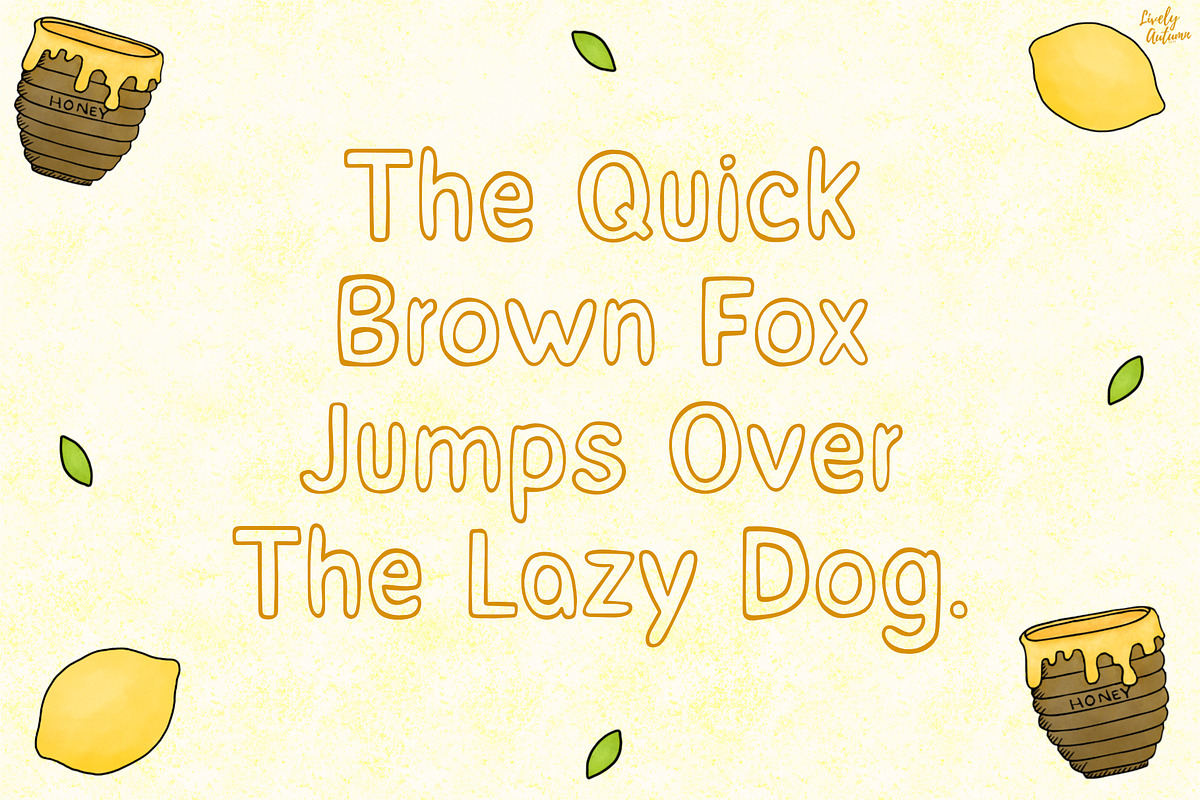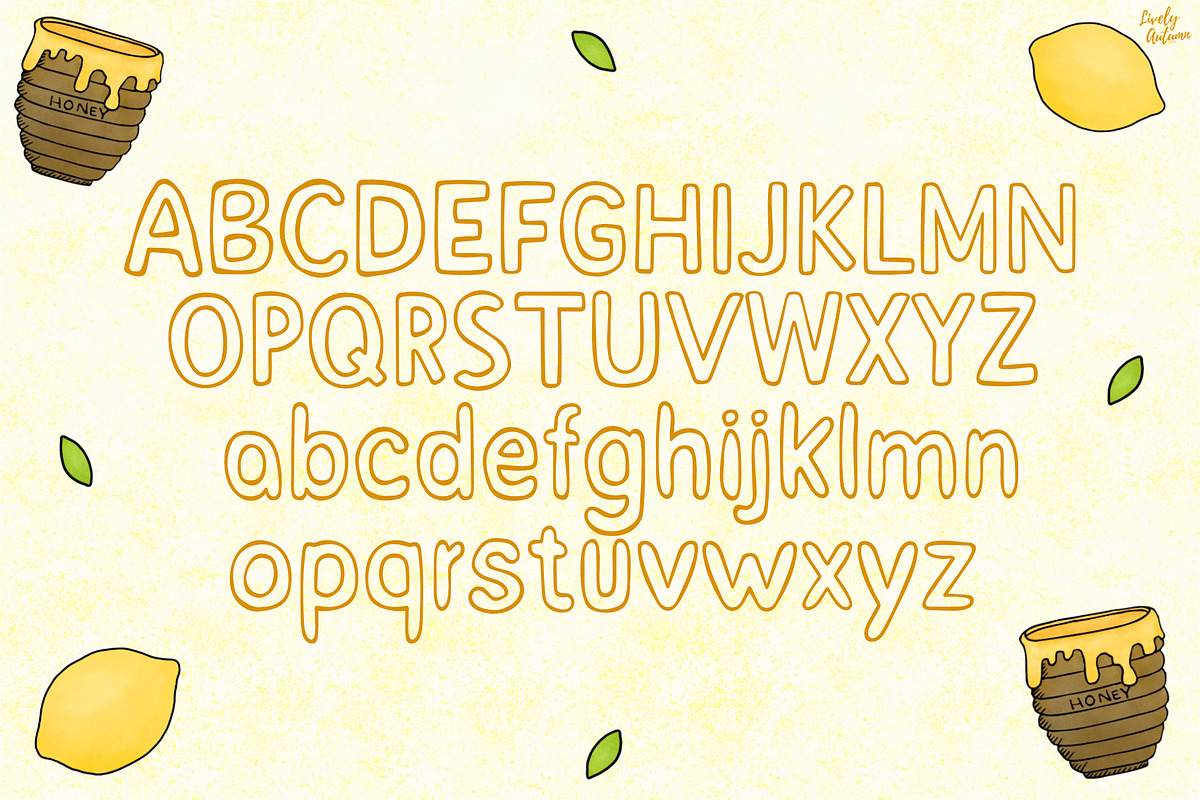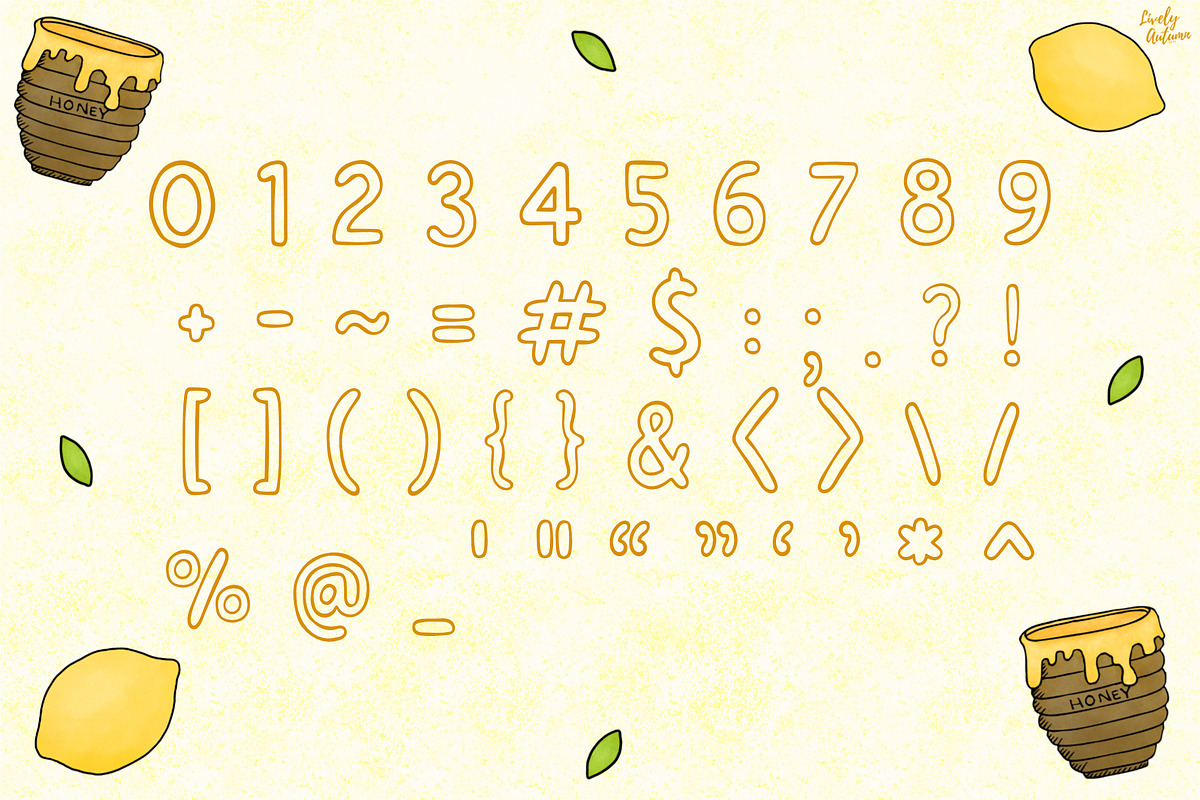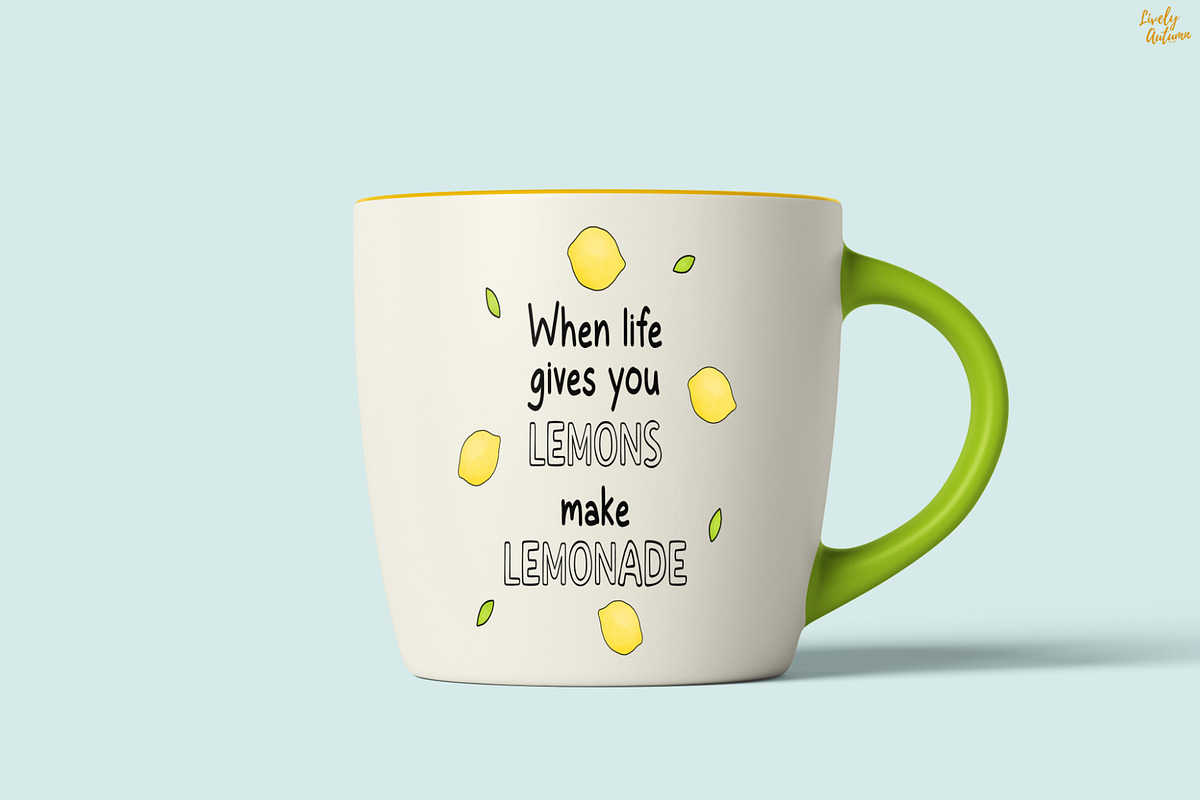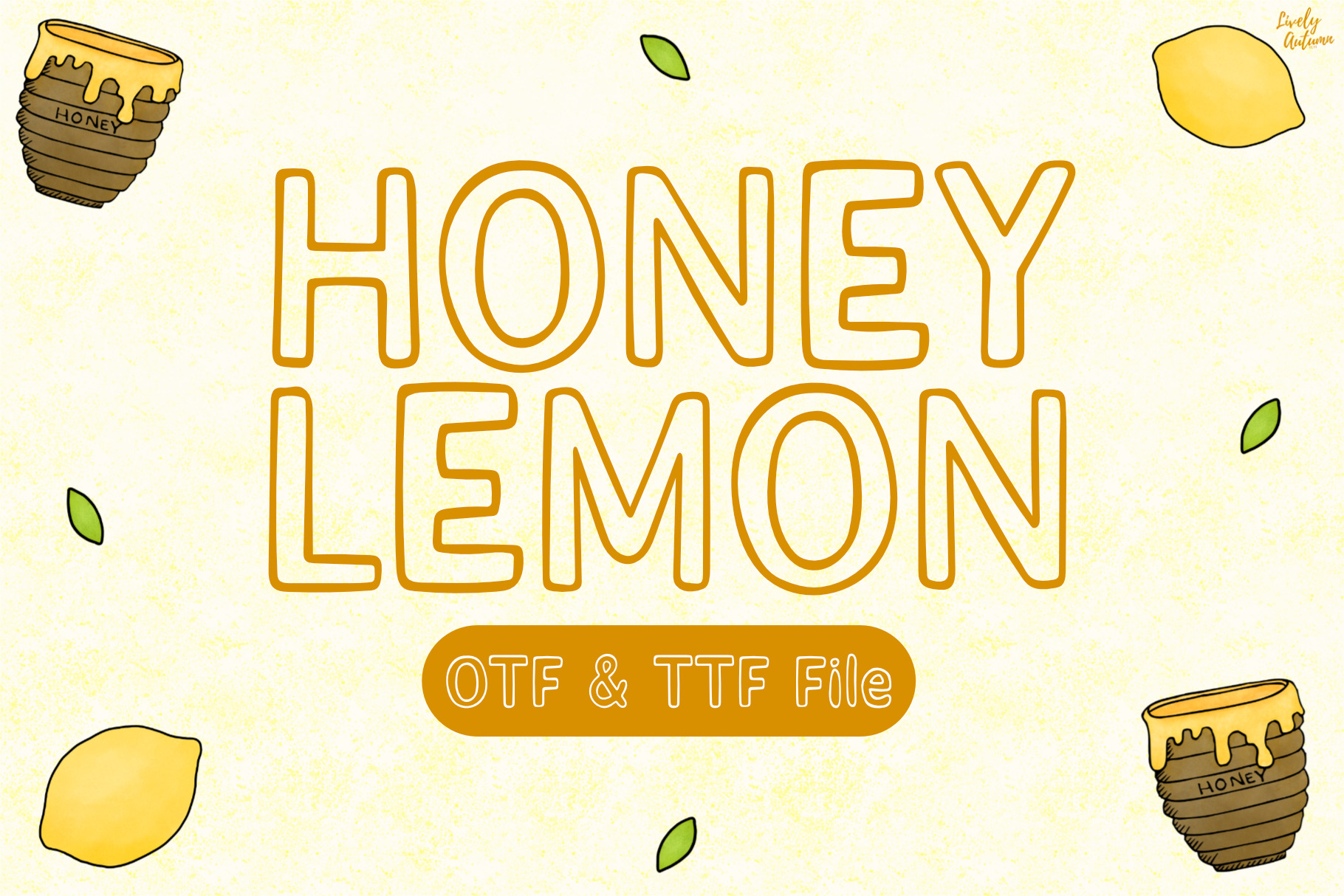
Honey Lemon | Handwriting Font
Honey Lemon Font is a outline handwritten font that is written in a rough way. Perfect for your personal projects and various projects. From invitations to posters, social media graphics, journals, and much more.